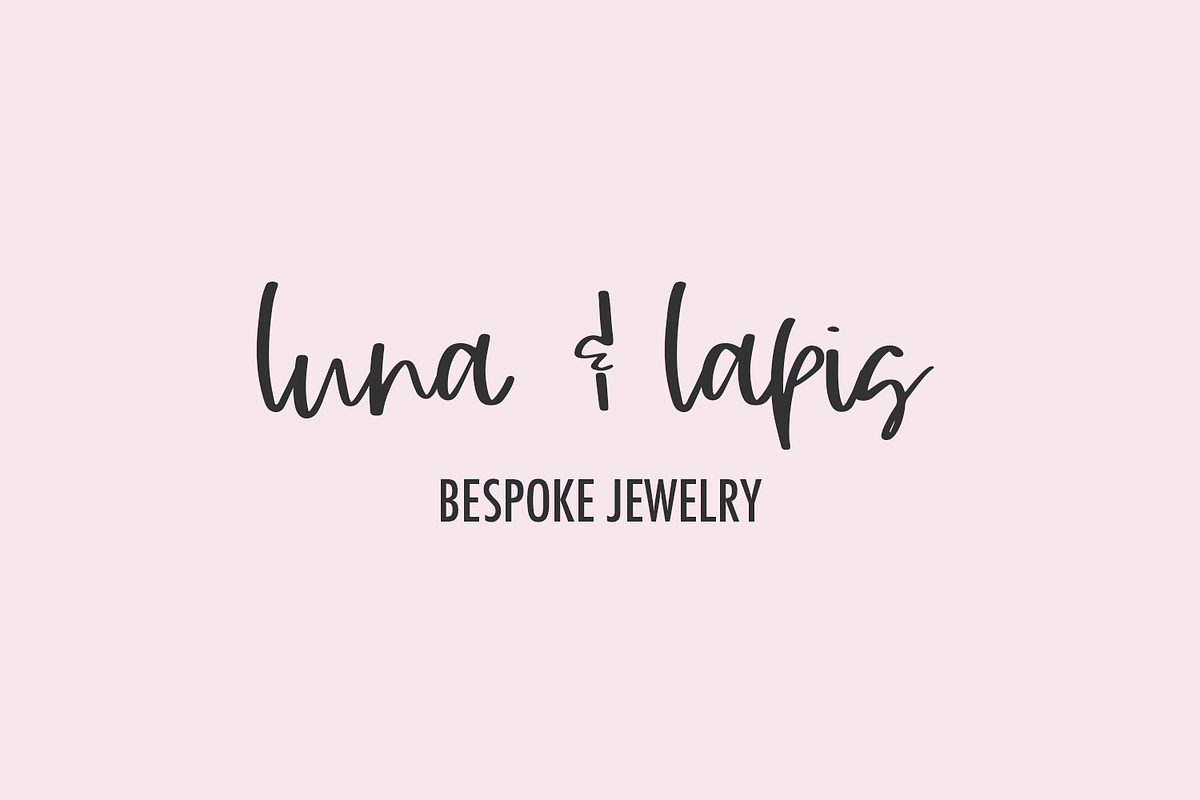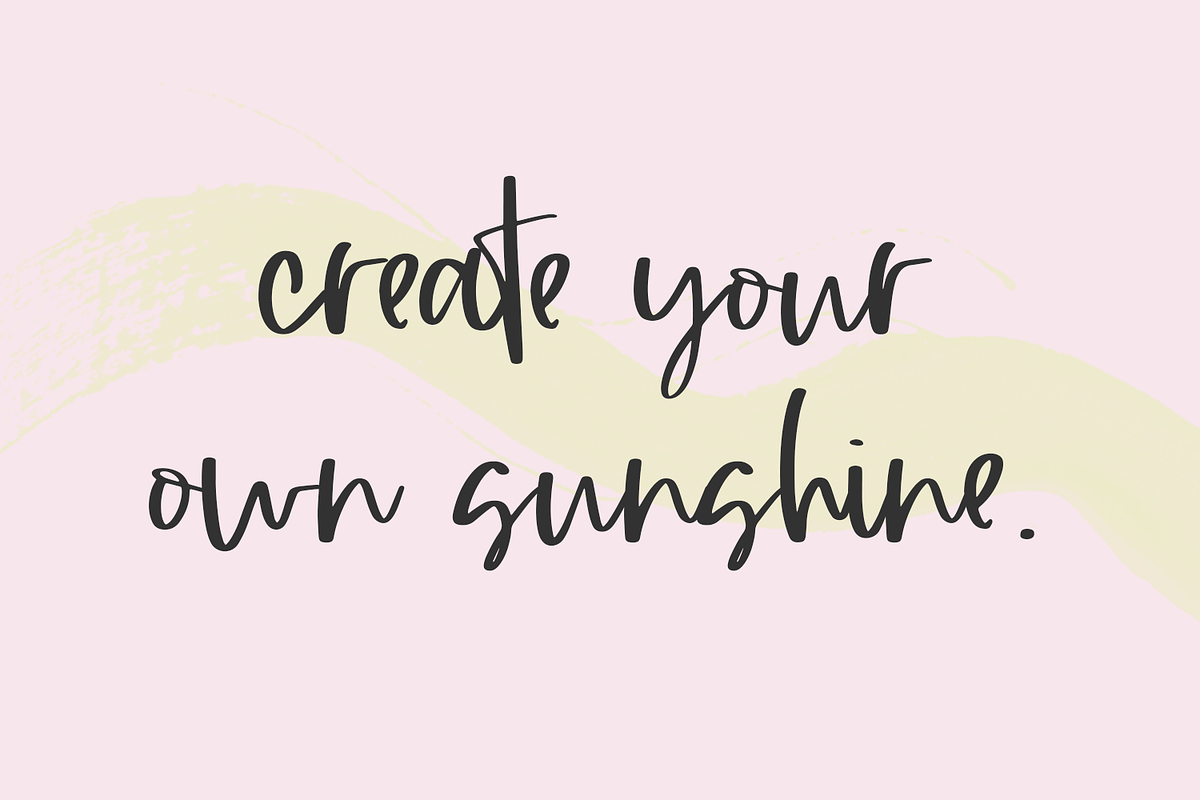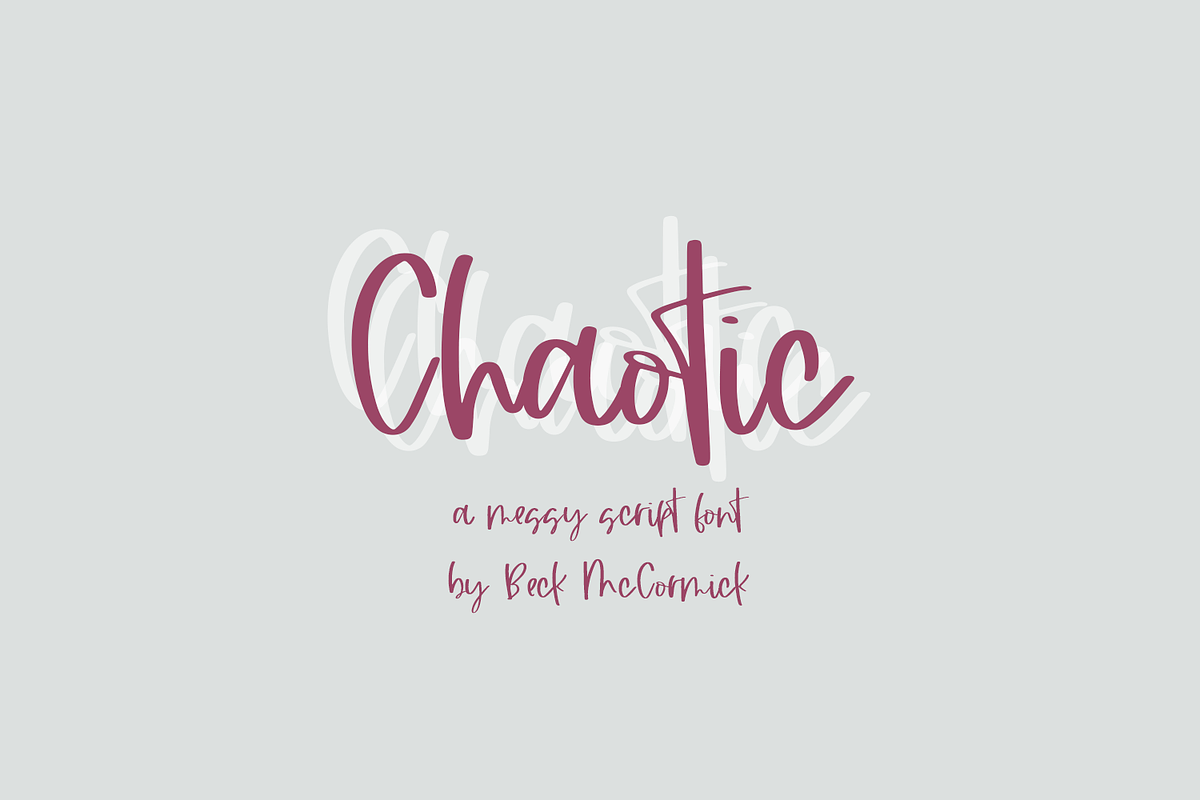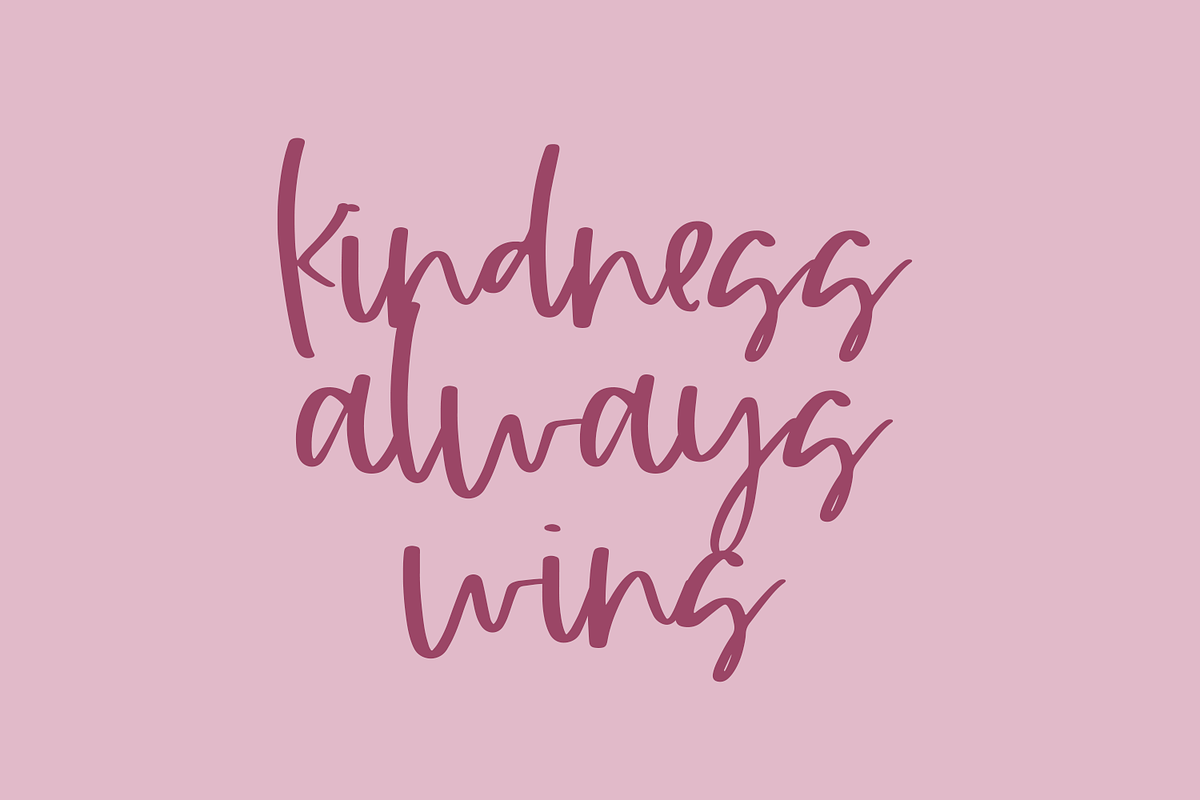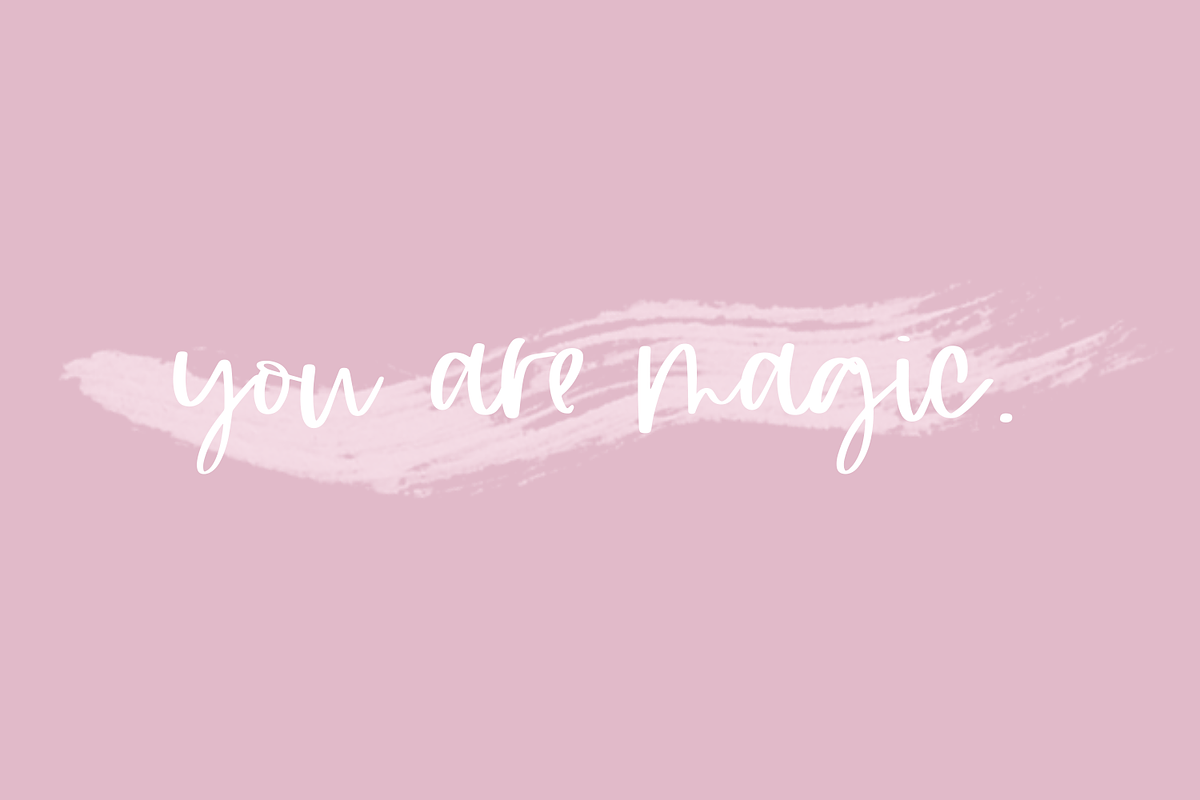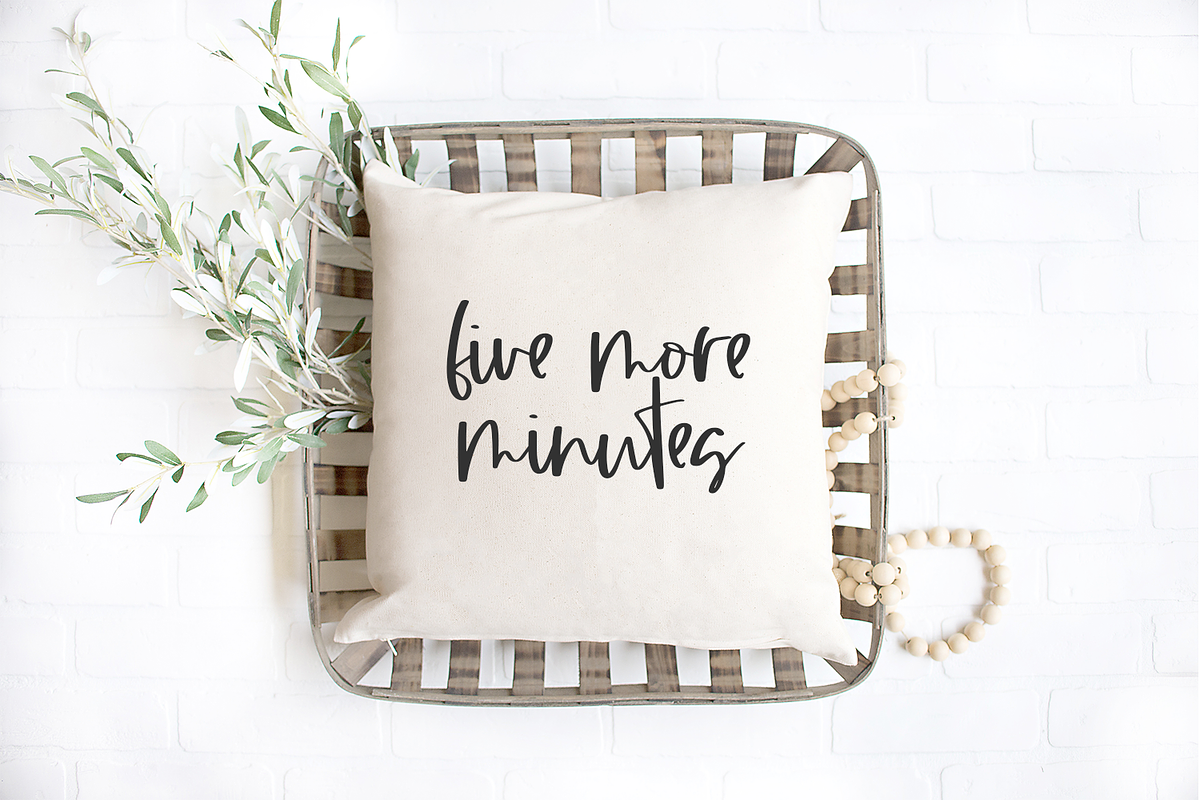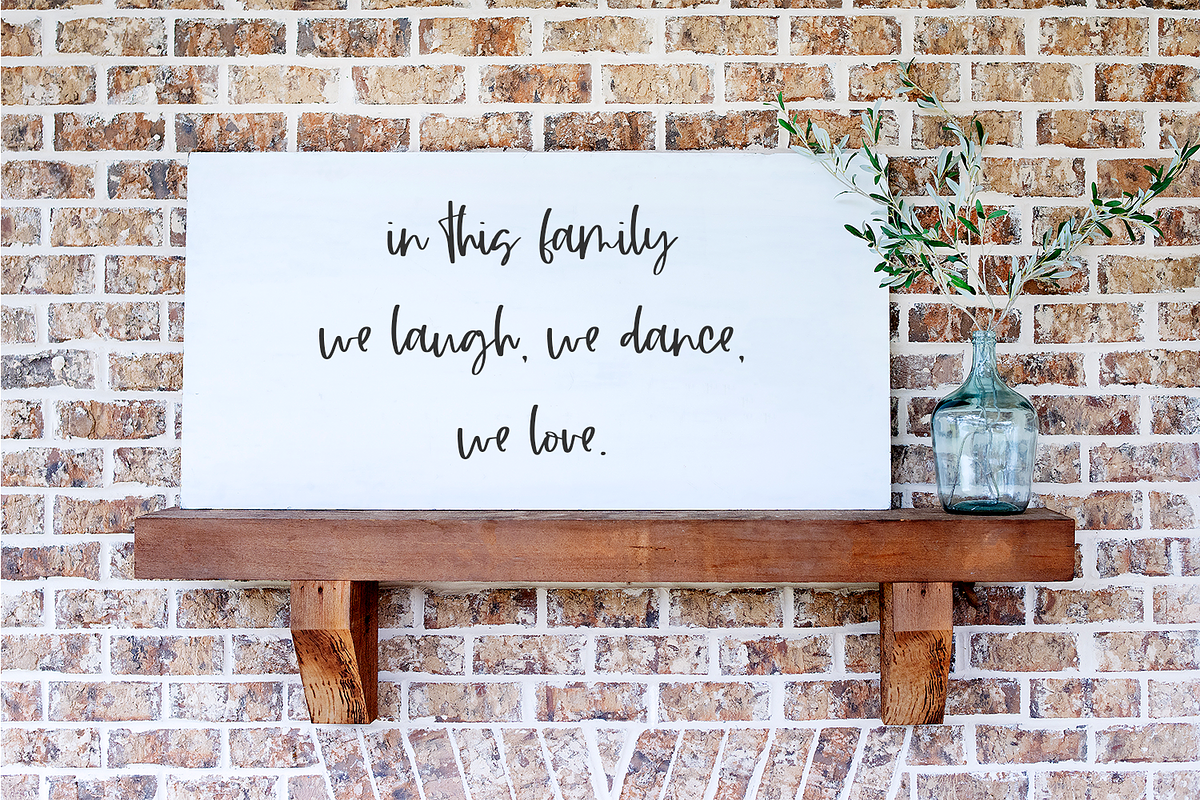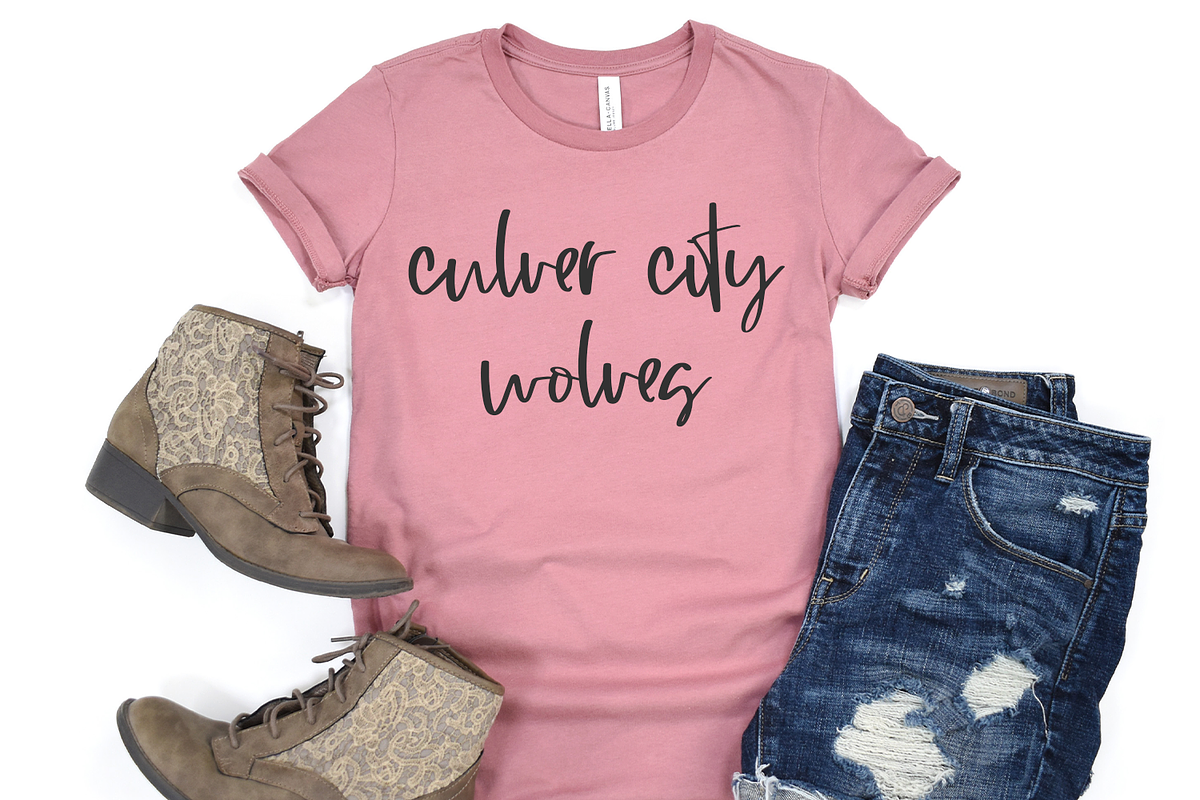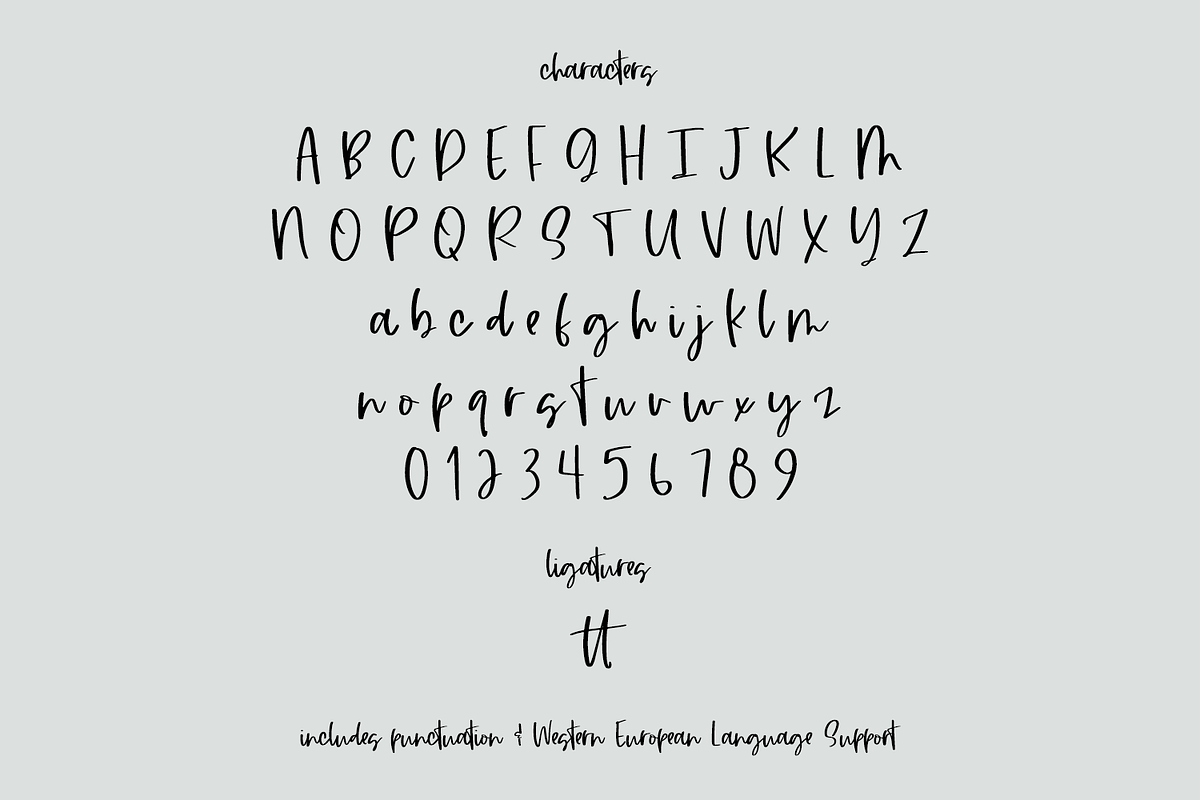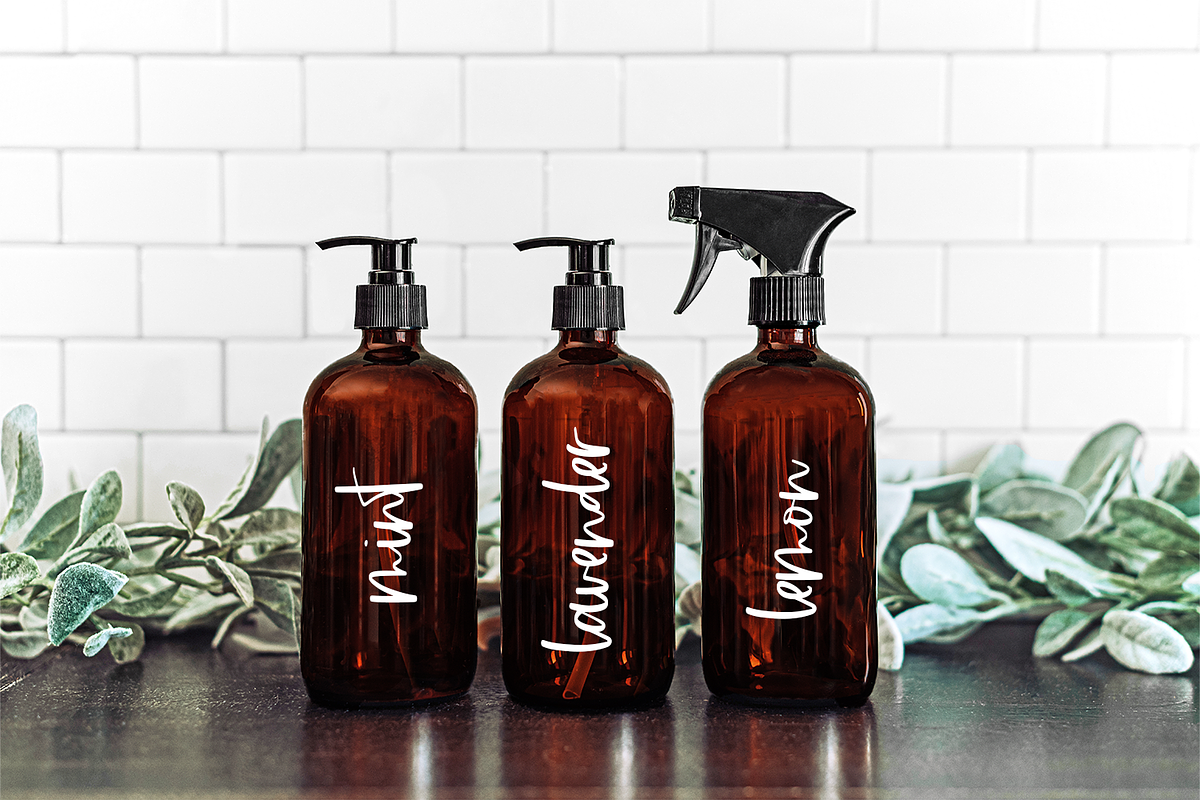
Chaotic Script
Chaotic Script is a messy handwriting font. This script font is like a signature. Chaotic is perfect for logos & branding, greeting cards, painted banners, digital planners, note-taking apps, Canva, Cricut projects, Silhouette projects, designing SVG files, laser cutting projects, & more.
Chaotic includes:
- full upper + lowercase characters
- numbers + punctuation
- 1 ligature - tt
- Western European language support - English, French, Spanish, Portuguese (Brazil), Portuguese (Portugal), Italian, German (Germany), German (Austria), Dutch, Danish, Swedish, Norwegian (Bokmål and Nynorsk), Finnish, Icelandic, Irish, Welsh